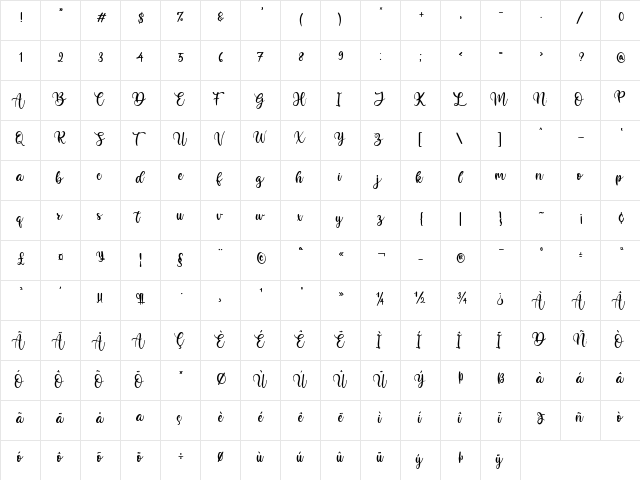
Butter Cookies Regular
Design Context for Butter Cookies Typeface
Butter Cookies is a composed and adaptable typeface that performs quietly and consistently across a wide range of design contexts.